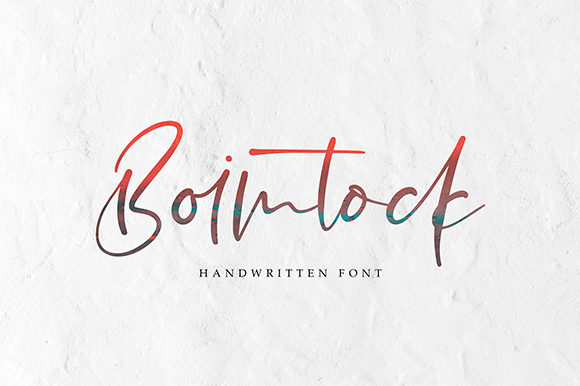
Boimtock Font
Unleash the enchanting beauty of Boimtock, a breathtaking handwritten font that dances across the digital canvas with an ethereal grace. Immerse yourself in a world of creativity as Boimtock's delicate strokes and graceful curves weave a tapestry of visual delight. Let your imagination soar as you explore the endless possibilities that await you with this captivating font.
Boimtock's inherent charm lies in its ability to infuse any design with a touch of elegance and sophistication. Its delicate lines and enchanting swashes create a sense of movement and energy that captivates the eye and draws the reader into your words. Whether you're crafting a heartfelt letter, designing an eye-catching social media post, or creating a stunning brand identity, Boimtock is the perfect choice to make your message shine.
With Boimtock by your side, you'll discover a font that's as versatile as it is beautiful. Its ability to effortlessly blend with a wide range of design styles makes it the perfect choice for any creative project. From elegant wedding invitations to playful children's books, Boimtock seamlessly adapts to your vision, adding a touch of magic to every word.
At Pineungtype & Missinklab, we believe that fonts have the power to transform words into art. With Boimtock, we've created a font that embodies this belief. Its meticulous design and attention to detail ensure that every character is a work of art, inviting your audience to engage with your content in a meaningful way.
Join the countless designers, artists, and creatives who have already fallen in love with Boimtock. Experience the joy of creating with a font that's both beautiful and functional. Let Boimtock take your designs to new heights and captivate your audience with its timeless elegance.